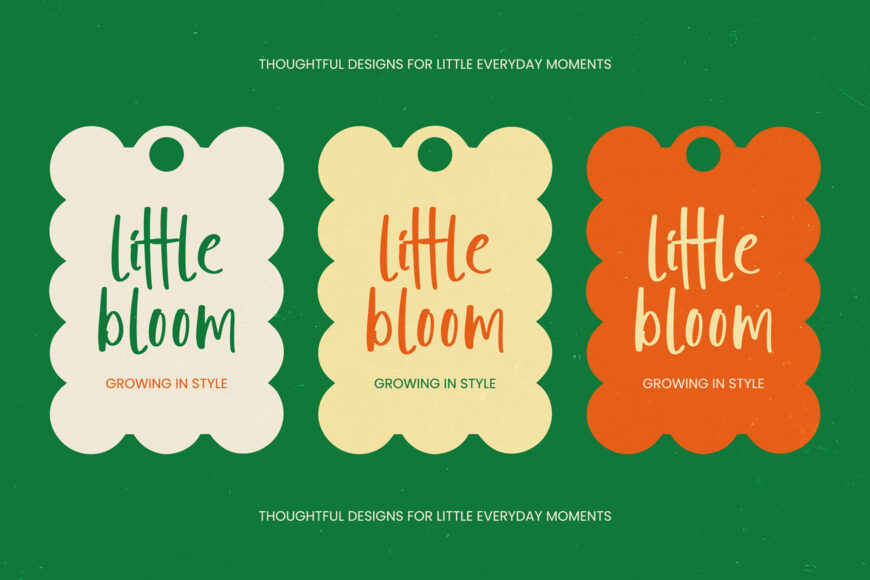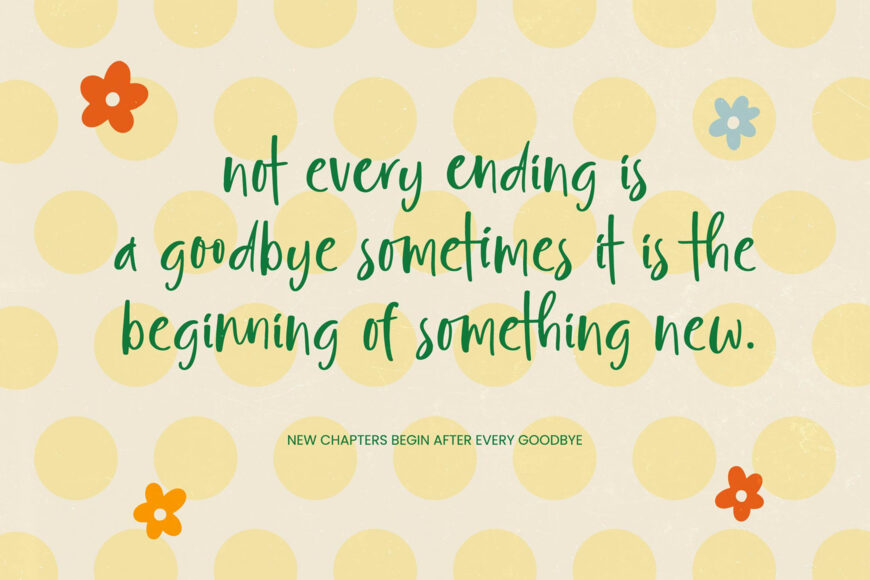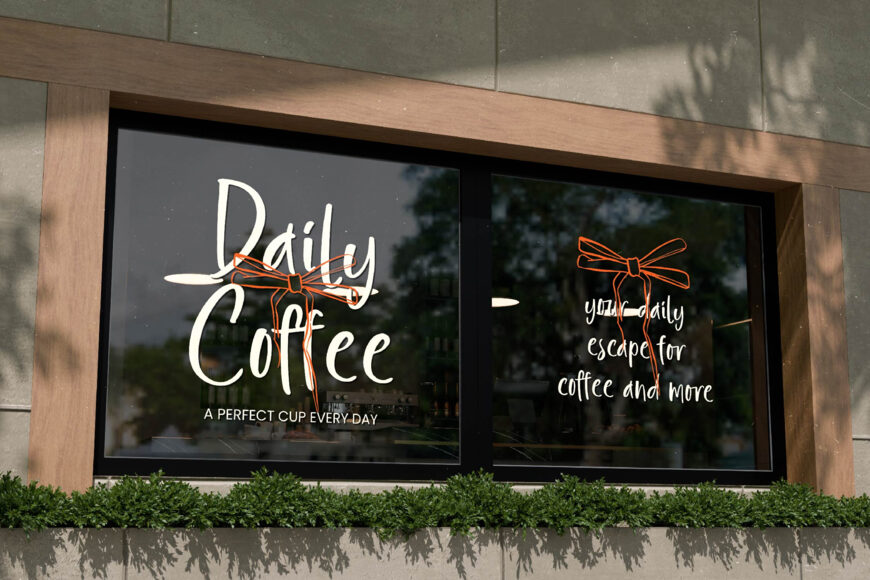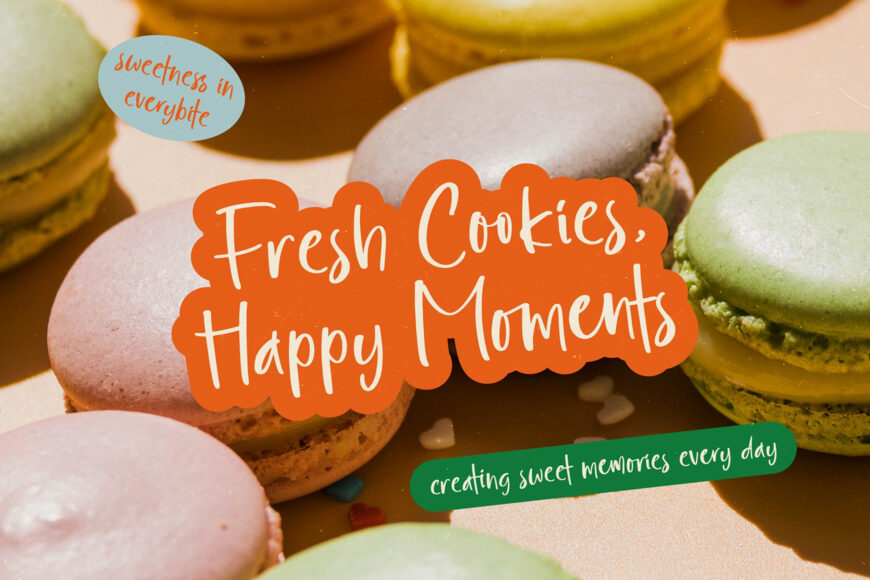
Bring your creative vision to life with Manifesta, a playful handwritten typeface full of charm and authentic personality. Its fluid strokes and organic, casual feel add lively rhythm while maintaining a polished, professional finish.
Featuring 29 ligatures and 361 glyphs, it gives designers the freedom to create custom, hand-rendered looks without compromising readability. More than a font, Manifesta is a versatile design tool that adds energy and expressive charm to modern typography.